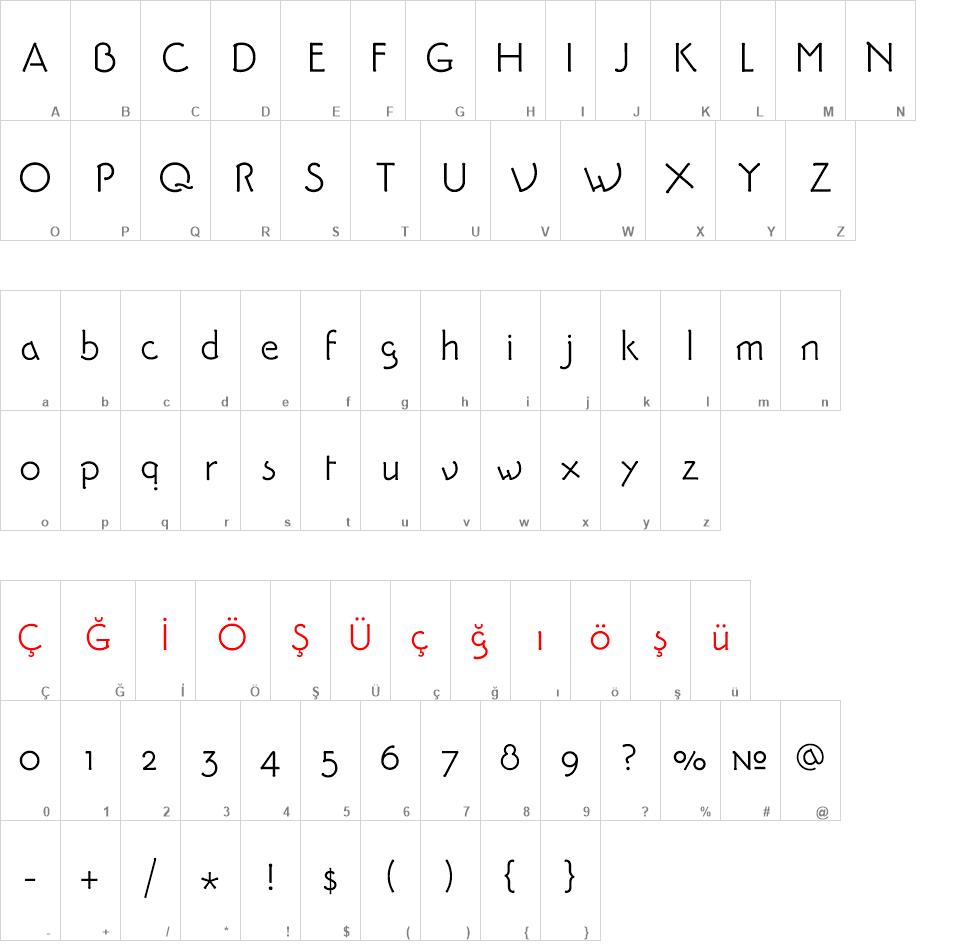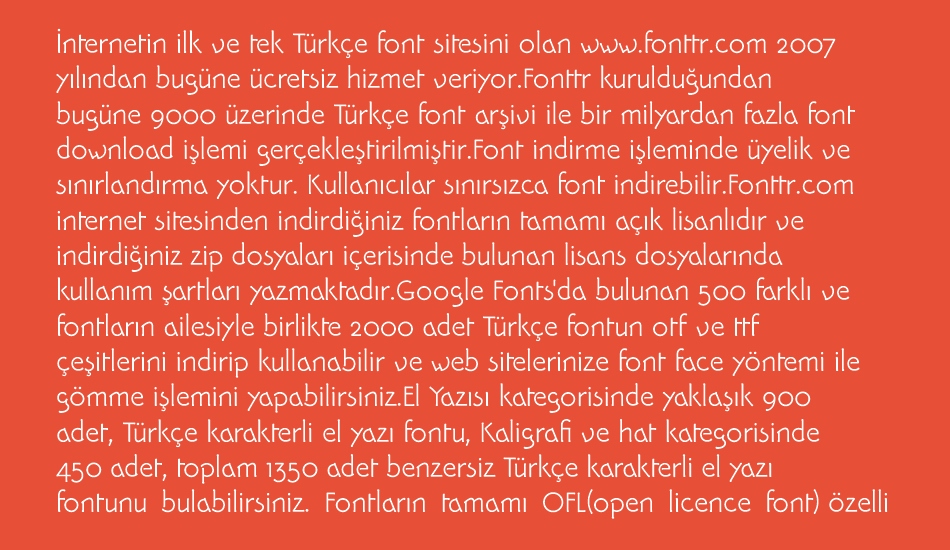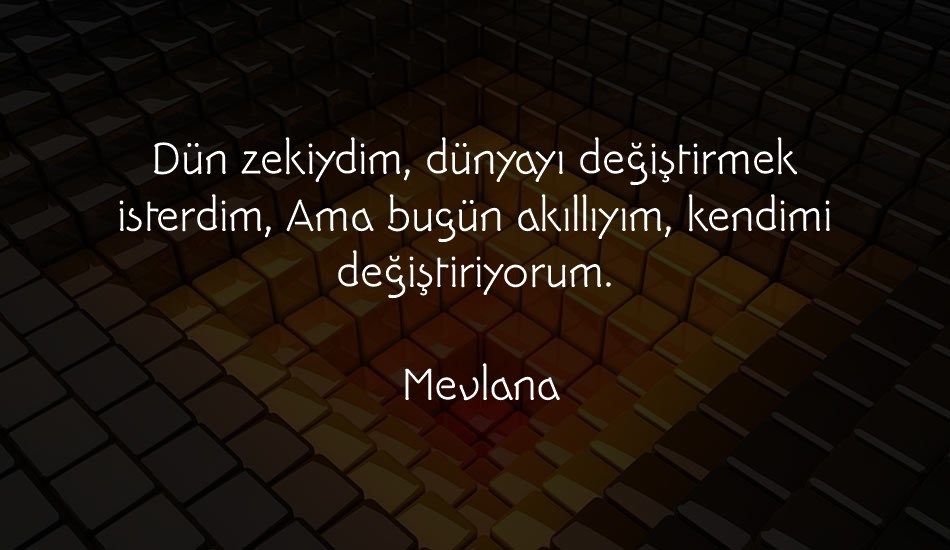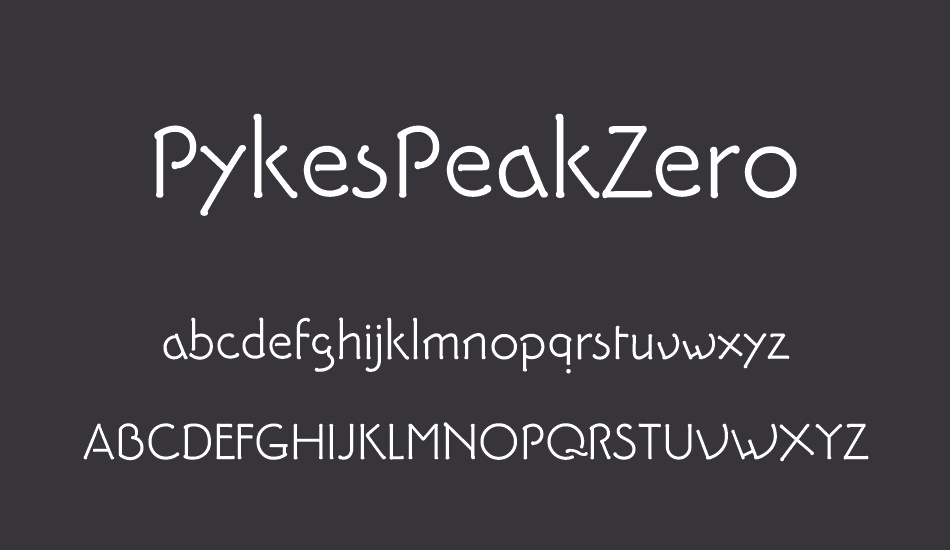
Pyke's Peak Zero font
P Y K E ' S P E A K a s e n t i n e l t y p e designed by James Arboghast
Pyke's Peak is a spirit type descended from Paeleoflex: The Angel of the Odd. Wraith-like forms mix Roman inscriptional letters with an ar'deco theme for an ethereal graphic art effect. Suitable for magazines and editorial design, book jackets & interiors, posters & broadsides, art & craft objects and other things needing a touch of the extraordinary.
Over 500 extra characters give Pyke's Peak unusual range and ability. Mirror capitals, phantom forms, dot phantoms, "superposed" (overlapping) ligatures, capitalized ligatures and fitted pairs for hours of trippy rub-down arcadian magic.
Includes hanging numerals, lining numerals, full punctuation, standard math & monetary symbols. Accented characters for Latin 1 and Latin 2 cover the following languages: Albanian, Catalan, Danish, Dutch, English, Estonian, Finnish, French, German, Icelandic, Italian, Norwegian, Spanish and Swedish. Available in OpenType format only.
This typeface is dedicated to Australian musician James "Jock" Paull, who is a free spirit.